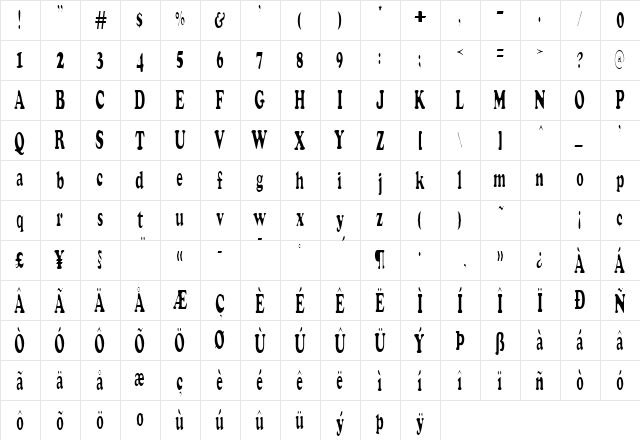
Stretch Plain Font Preview
Stretch Plain
Stretch Plain Font Details
Design Context for Stretch Typeface
Stretch is a composed and adaptable typeface that performs quietly and consistently across a wide range of design contexts.